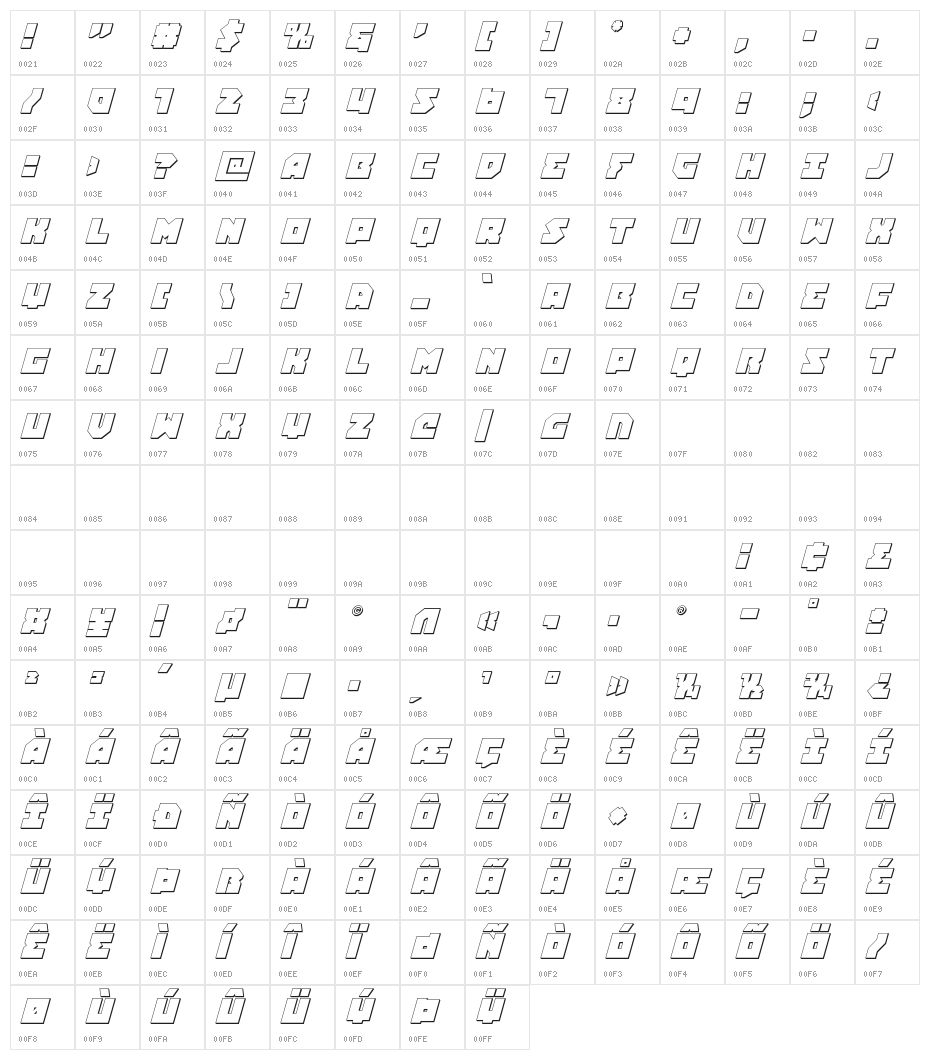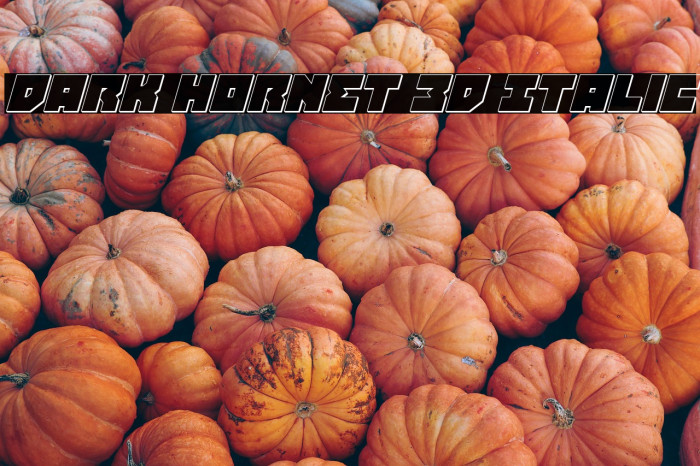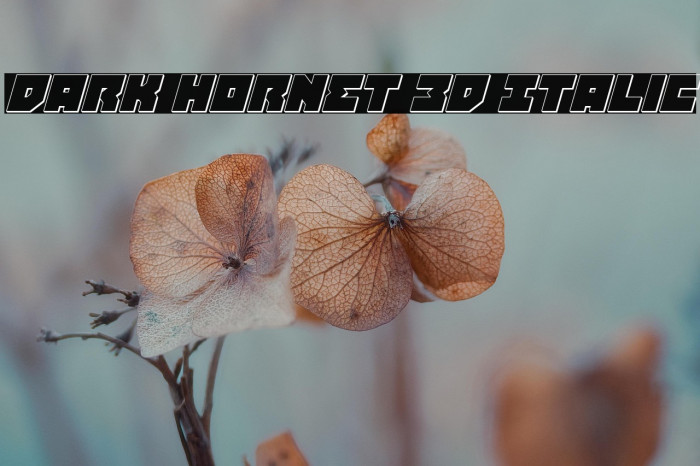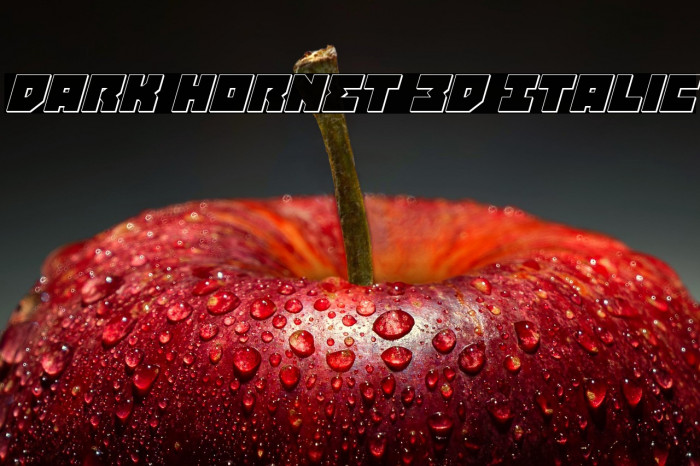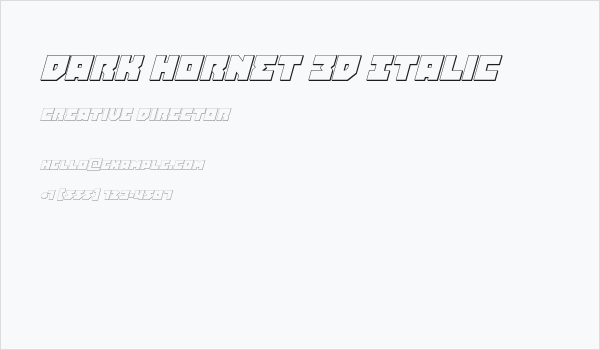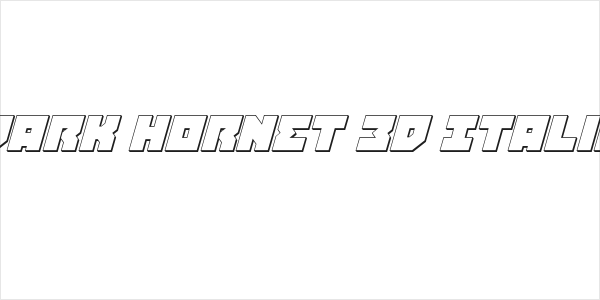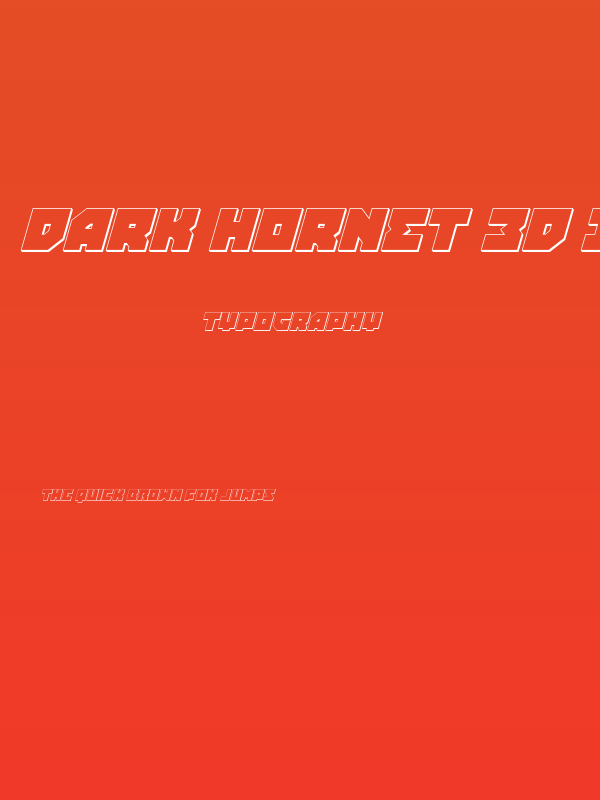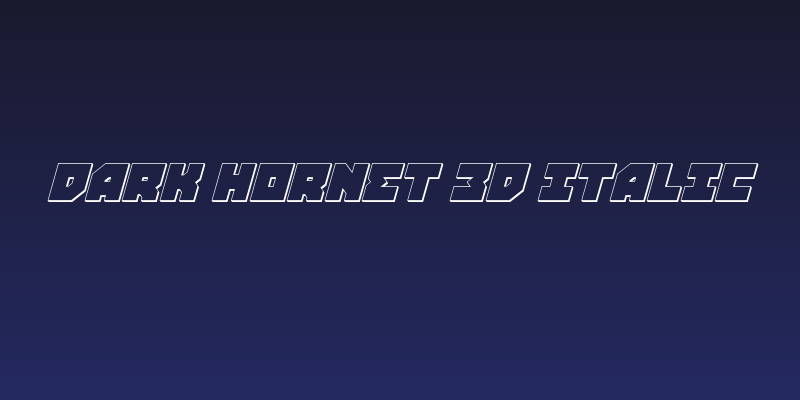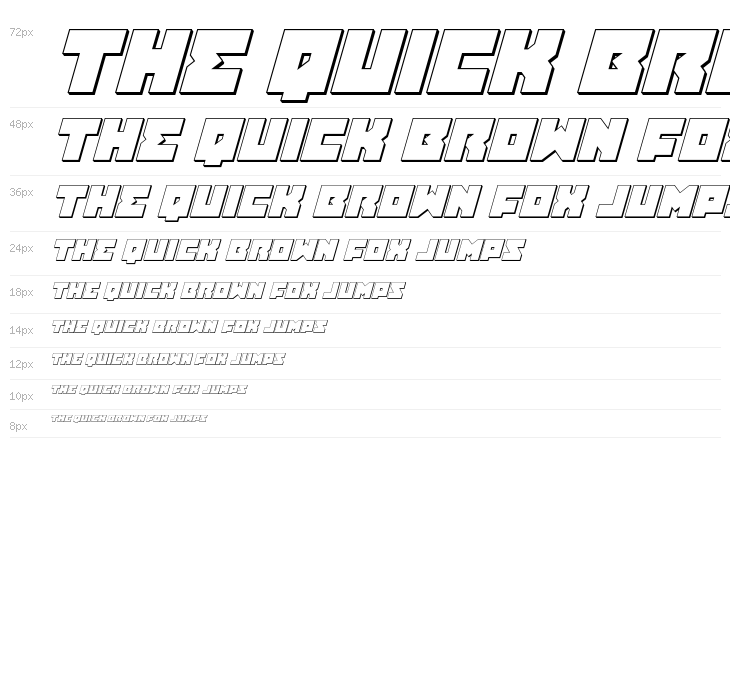
Dark Hornet 3D Italic Font
Dark Hornet 3D Italic Description
This font features a bold, three-dimensional design with an italic slant, giving it a dynamic and futuristic appearance. The characters are blocky and angular, with a distinct shadow effect that enhances the 3D illusion. The uppercase and lowercase letters maintain a consistent style, while the numbers and special characters complement the overall aesthetic. The font's strong geometric shapes and sharp edges make it stand out, making it ideal for attention-grabbing designs.